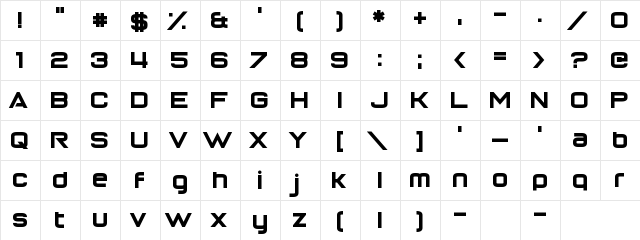
Return of the Grid Regular
Design Context for Return of the Grid Typeface
Return of the Grid is a composed and adaptable typeface that performs quietly and consistently across a wide range of design contexts.